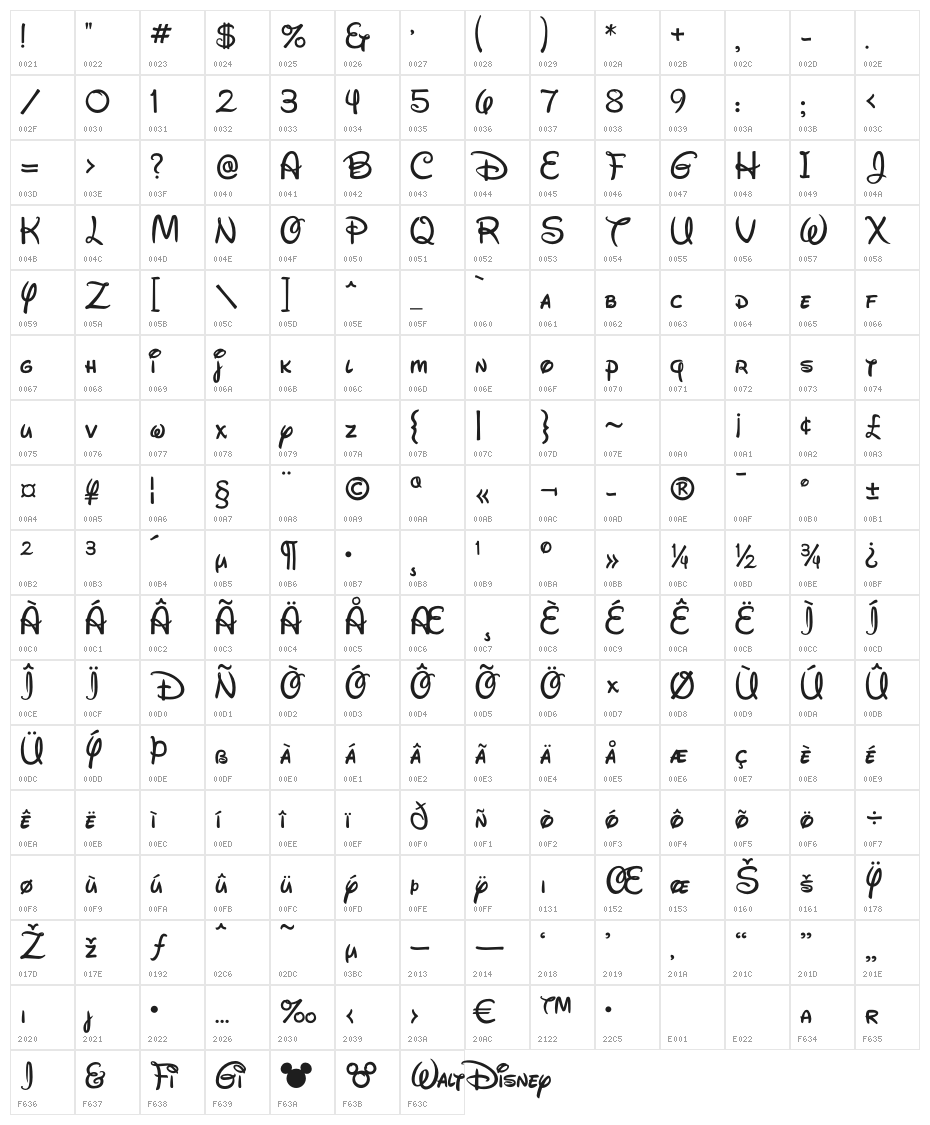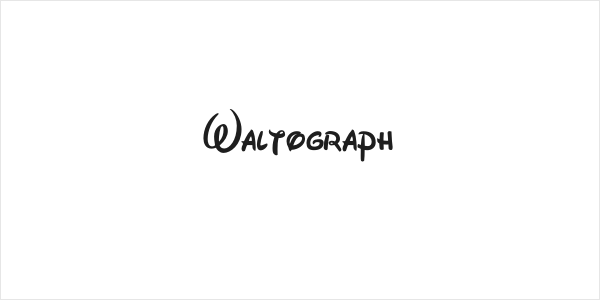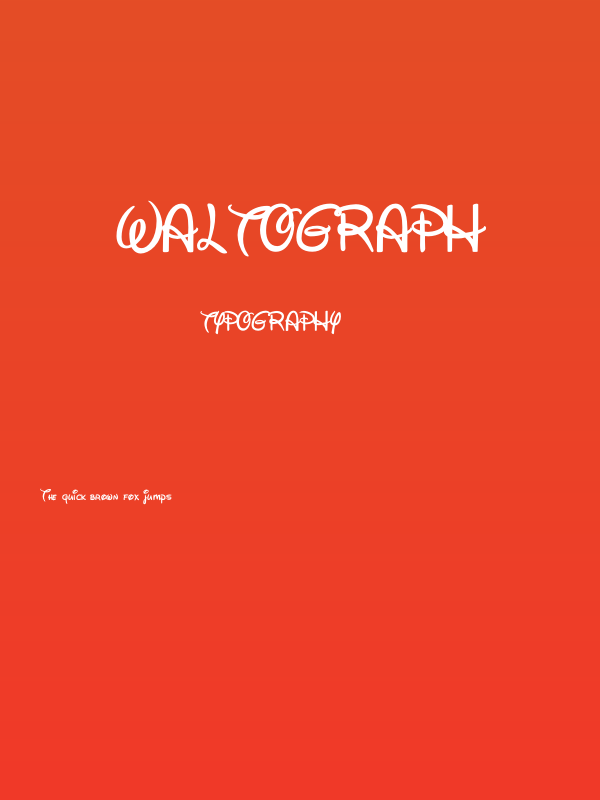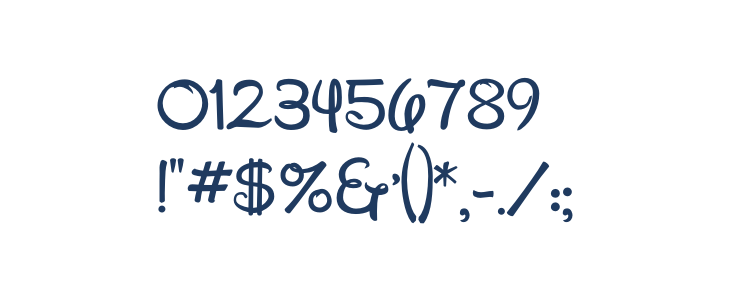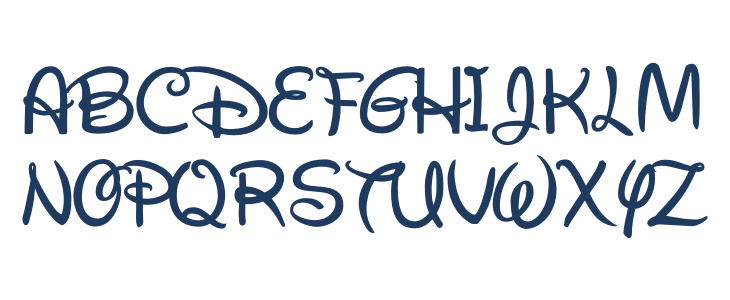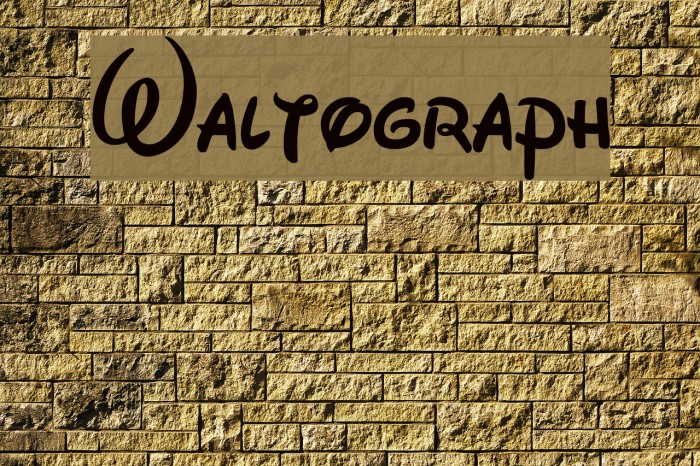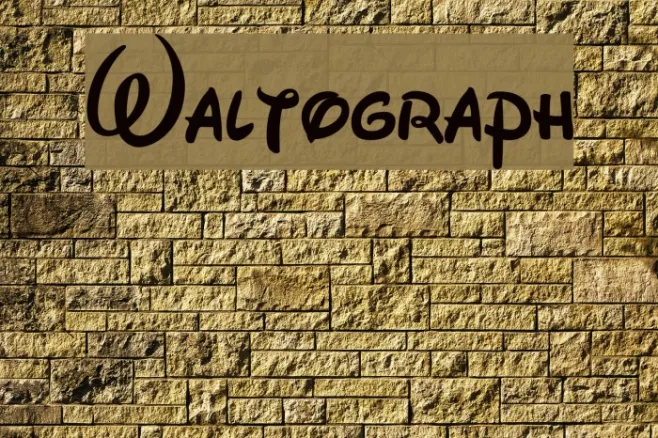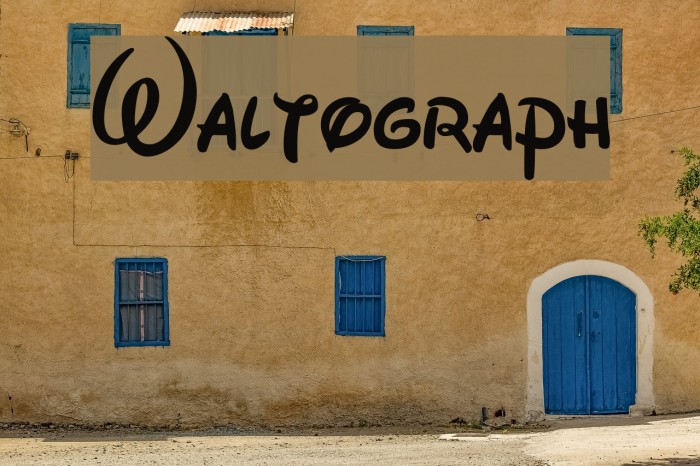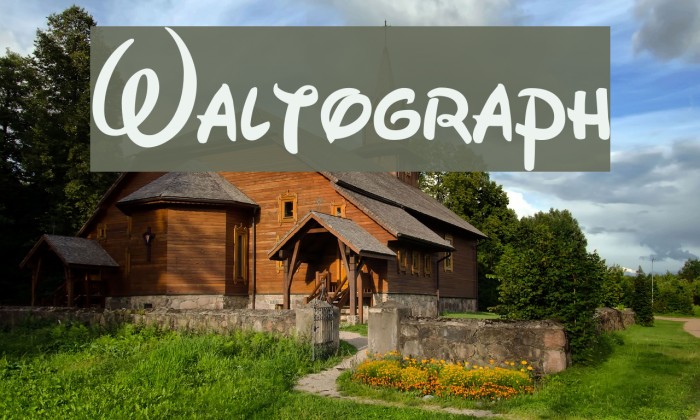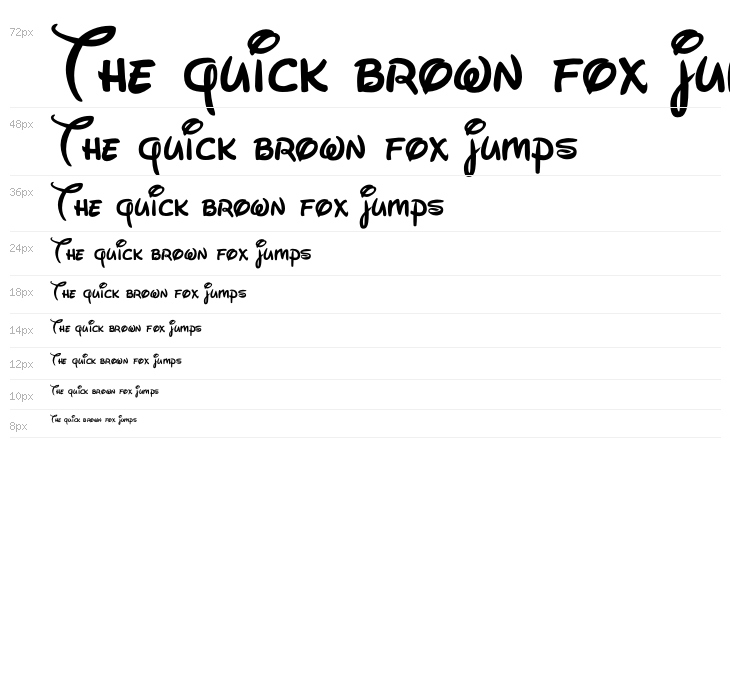
Waltograph Font
Waltograph Description
This playful and whimsical font features a handwritten style with smooth, flowing curves and a friendly appearance. The uppercase letters are bold and rounded, with distinctive loops and swirls that add a touch of elegance and fun. The lowercase letters maintain the same playful aesthetic, with a slightly more compact form. Numbers are consistent with the overall style, featuring rounded edges and a lively character. Special characters are creatively designed, integrating seamlessly with the rest of the font. This font exudes a sense of joy and creativity, making it perfect for projects that aim to convey a sense of wonder and imagination.
| Proposed Projects | Ideal for children's books, playful branding, party invitations, and creative logos. |